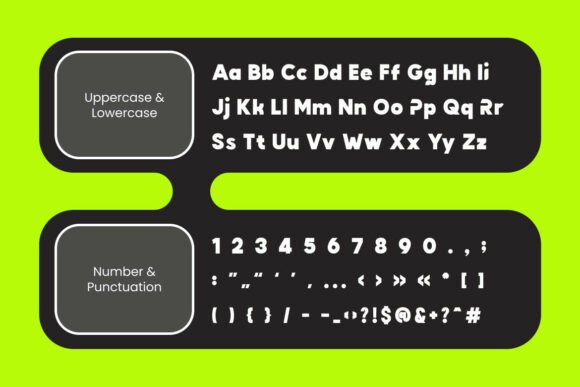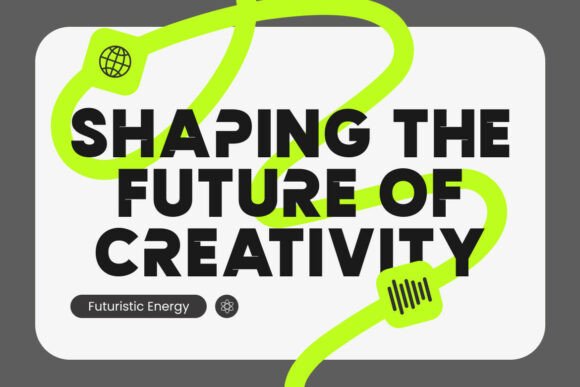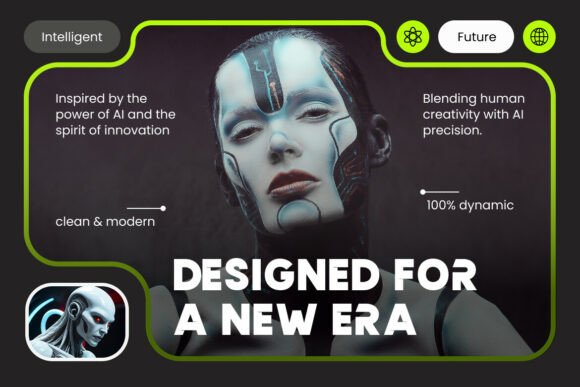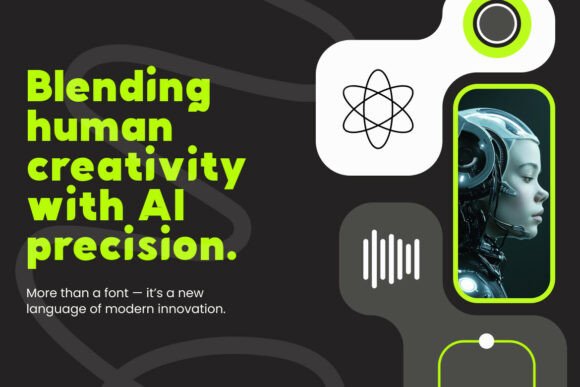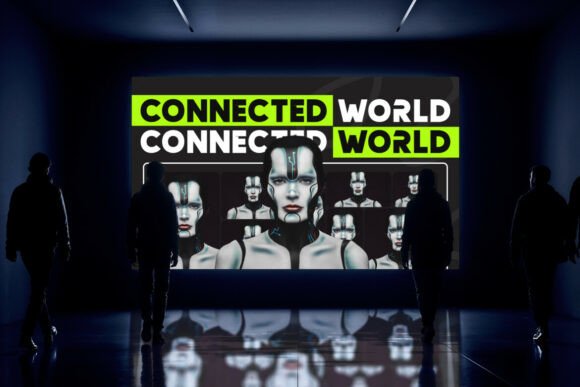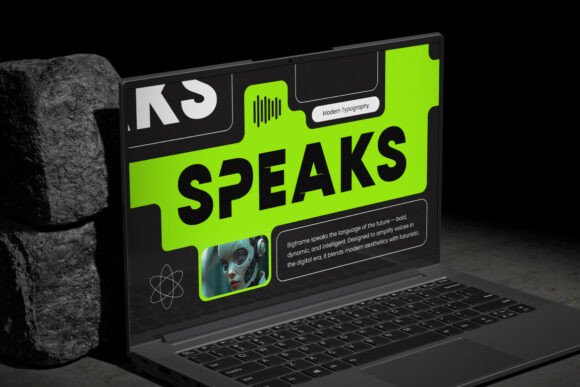
Introducing Bigframe Font: The Ultimate Display Sans-Serif for Bold Statements
In the world of typography, making a statement is crucial for brands, designers, and crafters looking to leave a lasting impression. Bigframe font is here to revolutionize the way you create bold, eye-catching text. This ultra-bold, modern sans-serif typeface is specifically designed to turn heads and dominate the visual landscape.
The Power of Bigframe Font
Bigframe is not just a font – it’s an experience. With its heavy-duty, ultra-bold design, this typeface prioritizes maximum visibility and modern style. The tight kerning and thick strokes create a solid wall of text that demands attention. Whether you’re working on a youthful branding project, a bold streetwear label, or a social media thumbnail, Bigframe font is the perfect tool to make your message heard.
Key Features of Bigframe Font
- Ultra-Bold Design: Bigframe font features an ultra-bold design that ensures maximum visibility and impact.
- Tight Kerning: The tight kerning of Bigframe font creates a solid wall of text that is both visually striking and highly legible.
- Thick Strokes: The thick strokes of Bigframe font add to its bold and confident appearance, making it perfect for display text.
- Modern Style: Bigframe font embodies a modern style that is both energetic and contemporary.
Perfect Use Cases for Bigframe Font
Bigframe font is incredibly versatile and can be used in a variety of contexts, including:
- Bold Branding Projects: Use Bigframe font to create bold, eye-catching branding that makes a statement.
- Streetwear Labels: Bigframe font is perfect for streetwear labels that require a bold, youthful aesthetic.
- Tech Startups: Tech startups can use Bigframe font to create a strong, modern visual identity.
- Gaming Graphics: Bigframe font is ideal for gaming graphics that require bold, high-impact text.
- Social Media Campaigns: Use Bigframe font to create eye-catching social media thumbnails and posts that demand attention.
- Posters and Advertising Materials: Bigframe font is perfect for creating bold, eye-catching posters and advertising materials.
- YouTube Thumbnails: Use Bigframe font to create bold, attention-grabbing YouTube thumbnails.
- Digital Product Promotions: Bigframe font can be used to create bold, eye-catching digital product promotions.
Tips for Using Bigframe Font
To get the most out of Bigframe font, consider the following tips:
- Use Vibrant, Neon Colors: Bigframe font looks amazing with vibrant, neon colors that amplify its energetic, contemporary vibe.
- High-Contrast Gradients: Use high-contrast gradients to add depth and visual interest to your text.
- Experiment with Sizes: Bigframe font is designed to be readable even at small sizes, so don’t be afraid to experiment with different sizes and layouts.
Bigframe font is a game-changer for designers and crafters looking to make a bold statement. With its ultra-bold design, tight kerning, and thick strokes, this typeface is perfect for creating eye-catching text that demands attention. Whether you’re working on a branding project, a streetwear label, or a social media campaign, Bigframe font is the perfect tool to help you stand out from the crowd.
Get Ready to Make a Statement with Bigframe Font